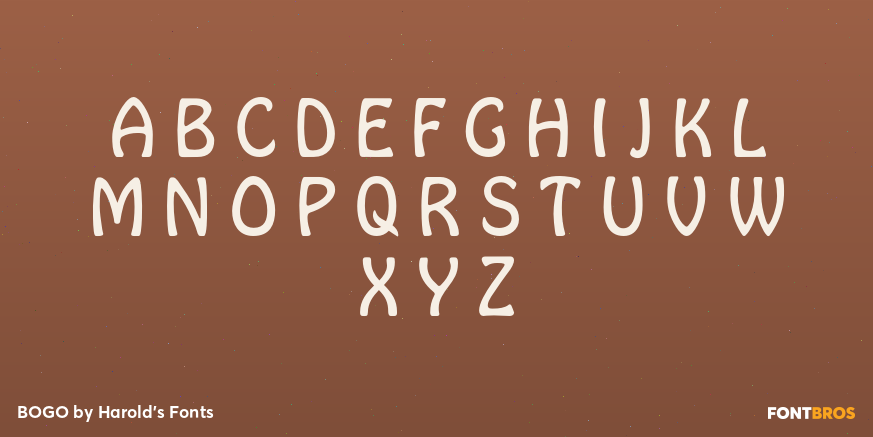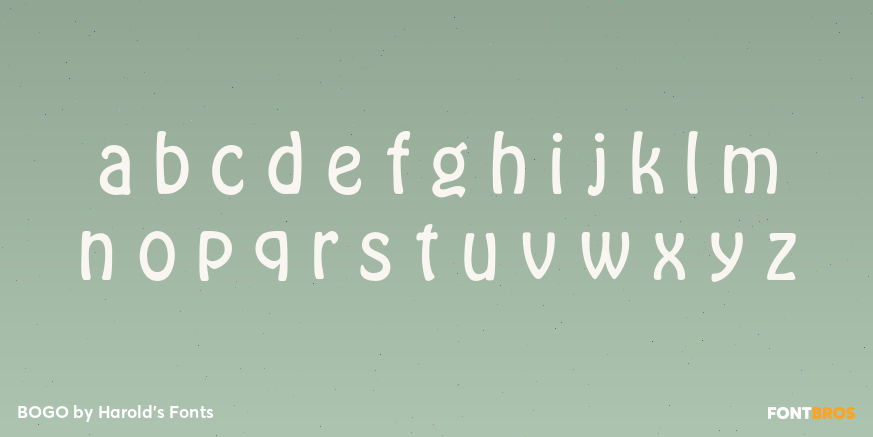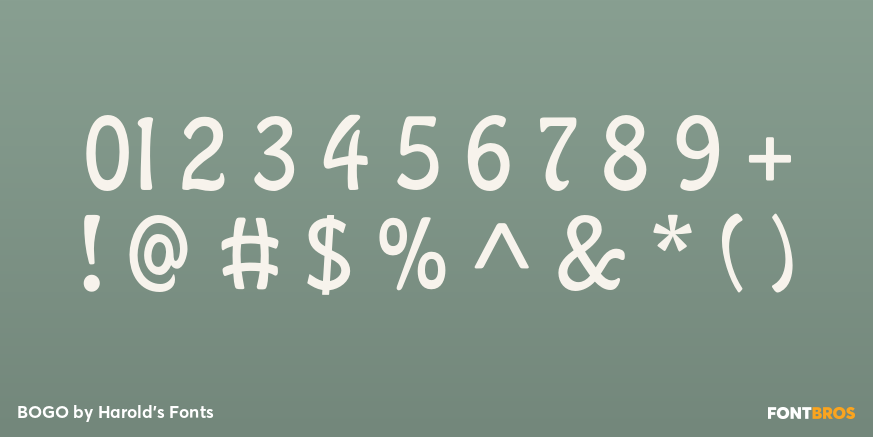
BOGO
Font Family by Harold's Fonts
BOGO is a friendly and graceful font with an Art Nouveau feel. It was inspired by "Light Hobo," once a member of that font family designed by Morris Fuller Benton and released in 1910 by ATF. The Light variant followed in 1915 but appears not to have been digitized. Working from historic examples, I completely redrew the typeface, maintaining its curvy lines and lack of descenders. BOGO has a lightness and elegance that is sometimes lacking in Hobo and its many imitators (Vagabond, Tramp, etc.)